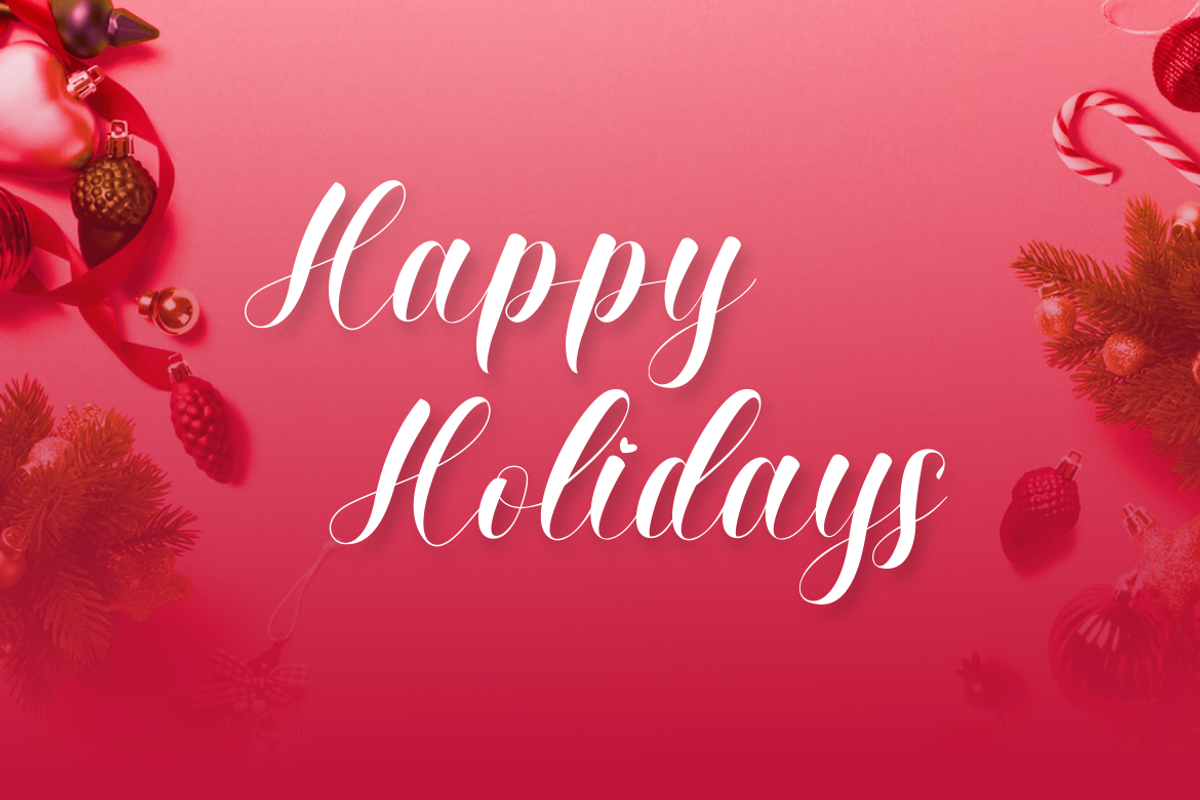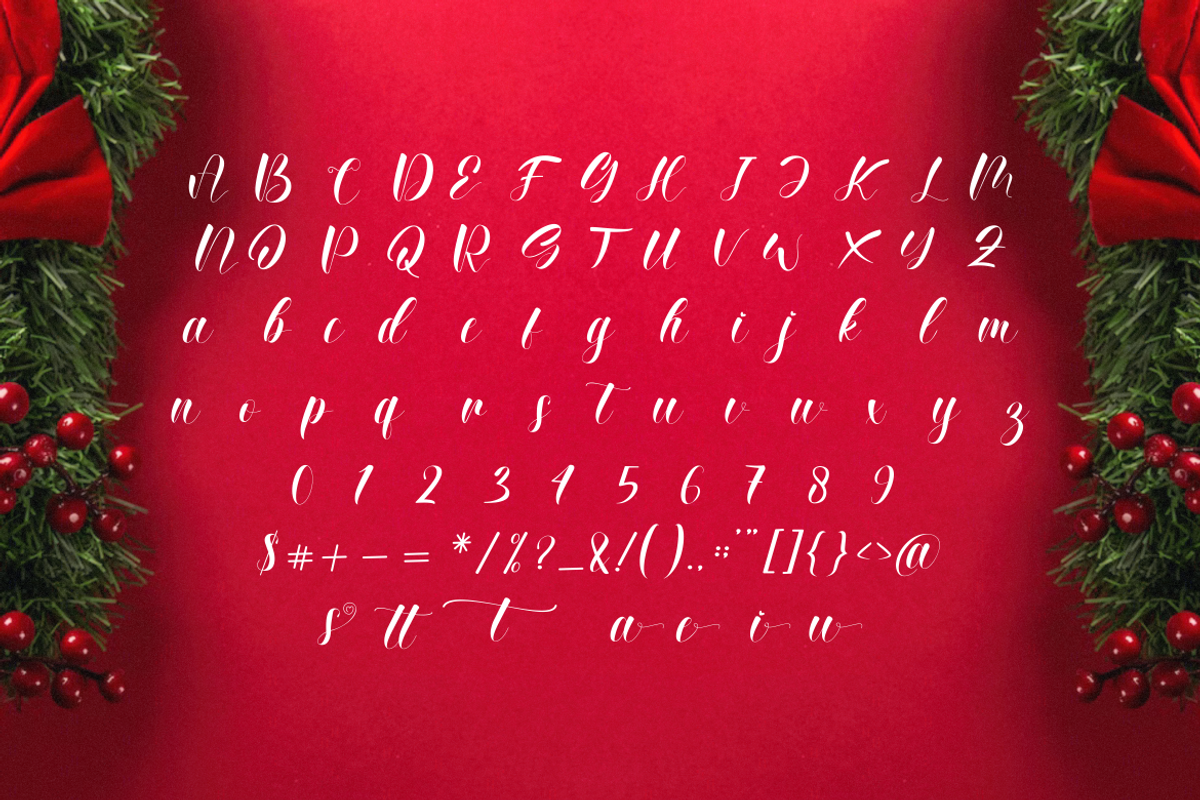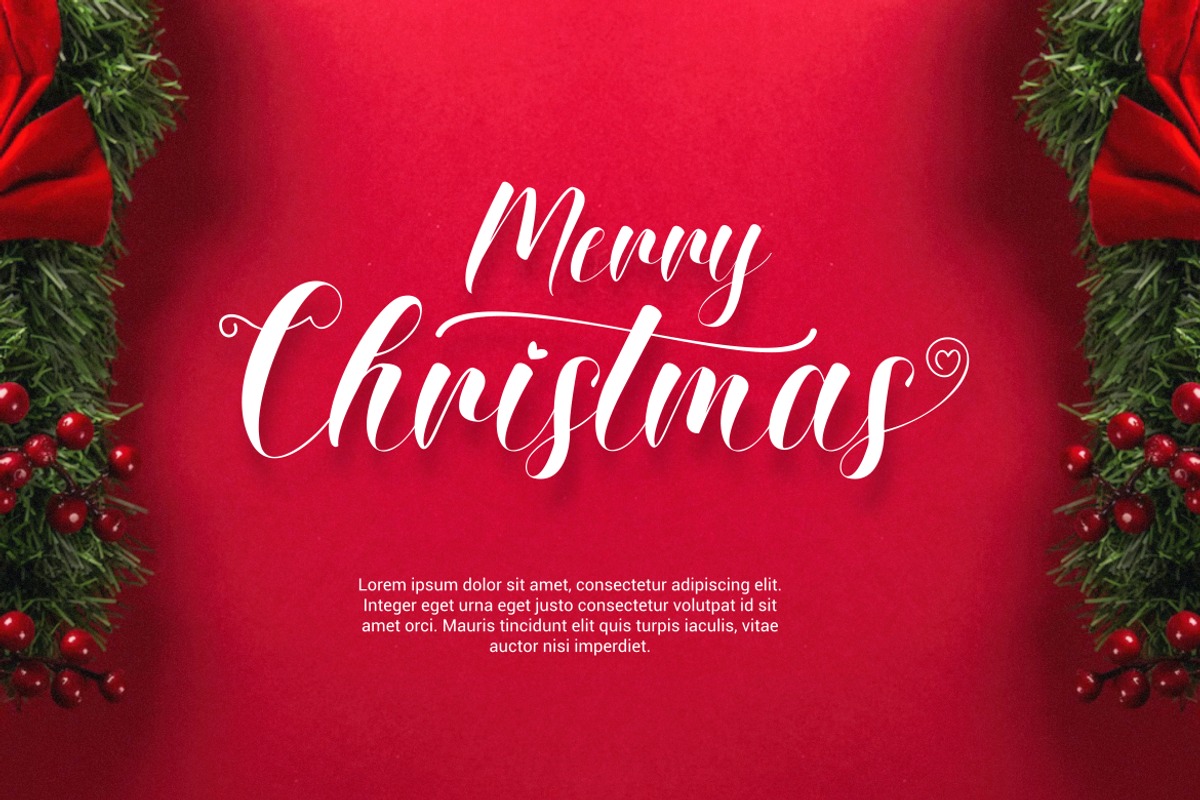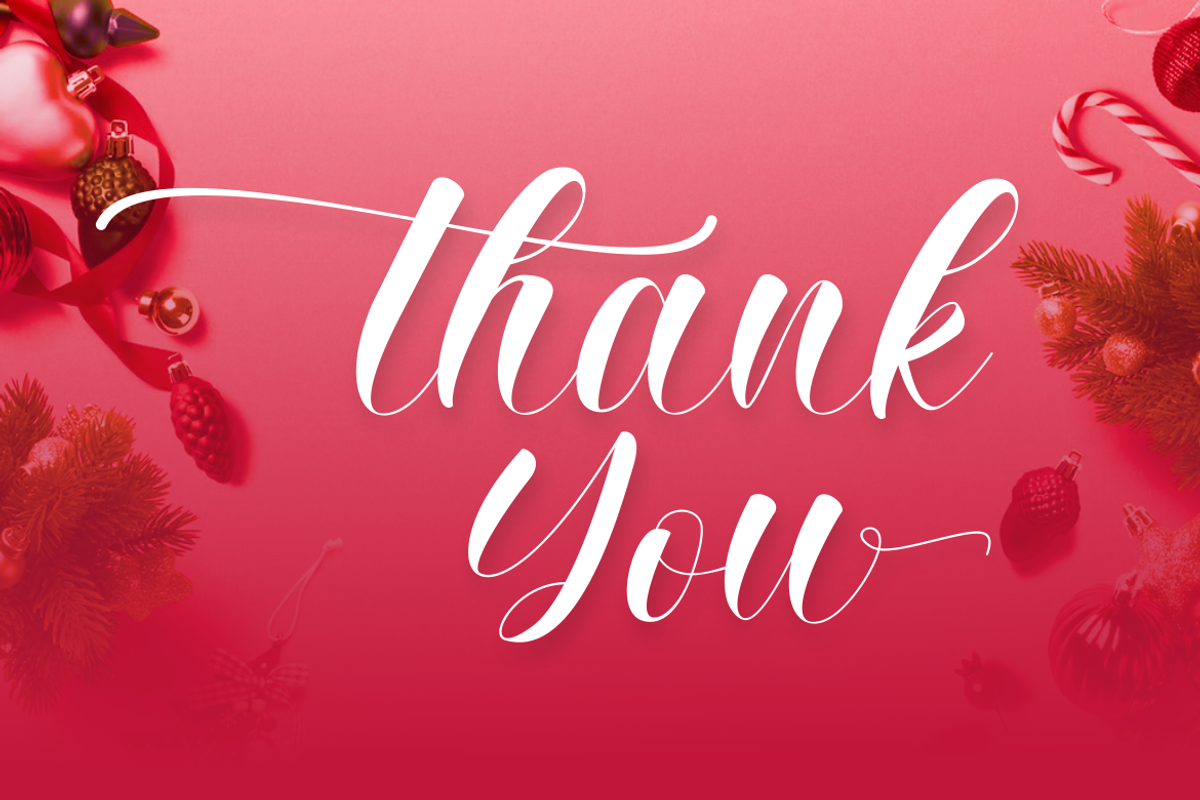
Christmas Beauty Day Font
Presenting our new product Christmas Beauty Day Font - Modern Font is a bold and authentic display font. This font is perfect for any branding project such as logos, t-shirt printing, creative products, and more. extraordinary in a variety of contexts.